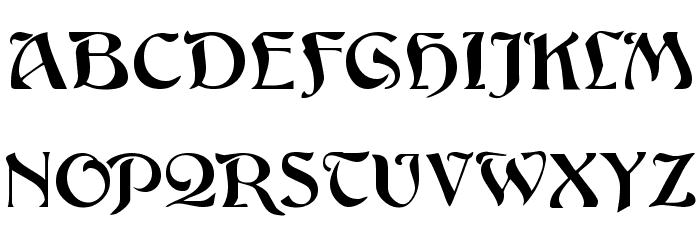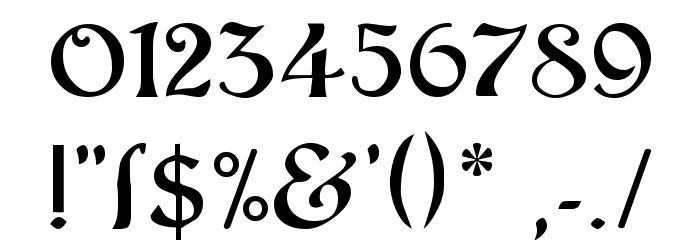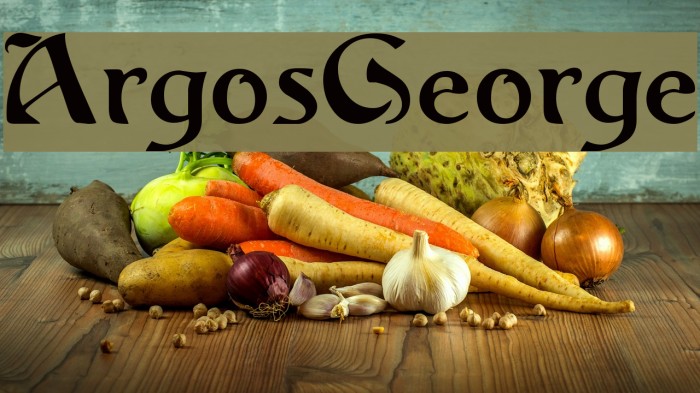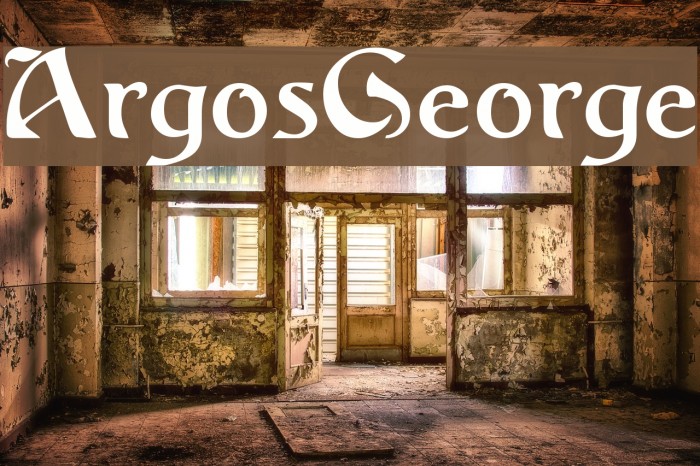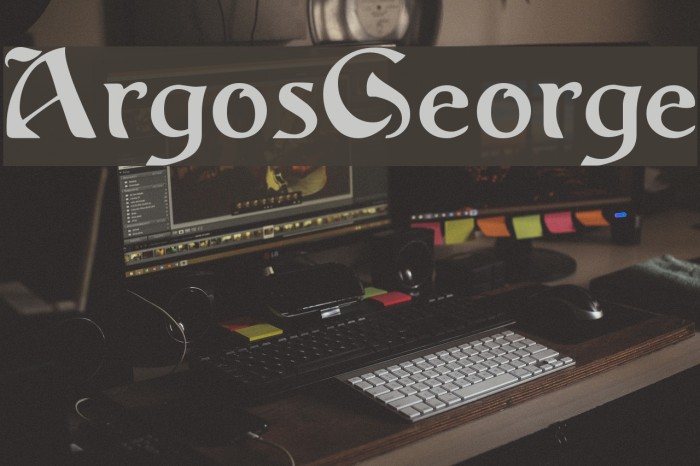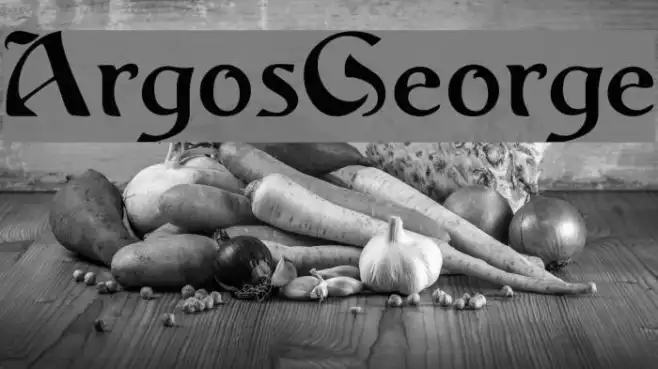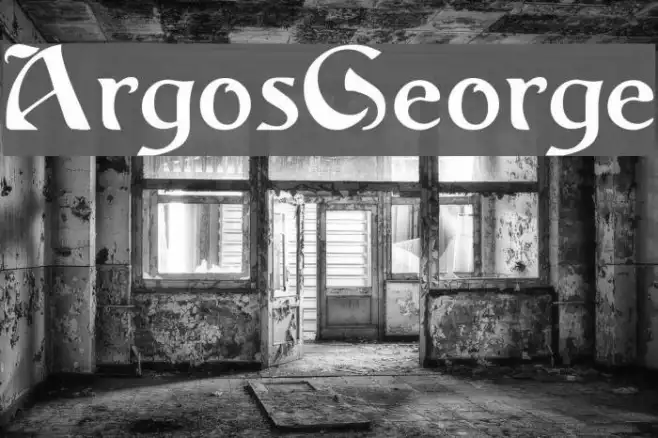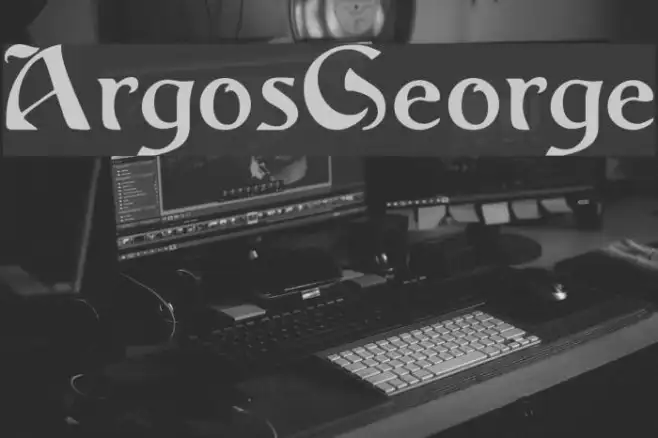
ArgosGeorge Font
This font features a bold and dramatic style with sharp, angular serifs and a distinct Gothic influence. The uppercase letters are particularly striking, with exaggerated curves and pointed edges that give a sense of movement and flair. The lowercase letters maintain a consistent style, with a slightly more subdued appearance but still retaining the overall dramatic effect. The numerals are bold and clear, matching the style of the letters, and the special characters are designed to complement the overall aesthetic. This font is ideal for creating a strong visual impact in any design.
A bold, Gothic-inspired font with sharp serifs and dramatic flair.